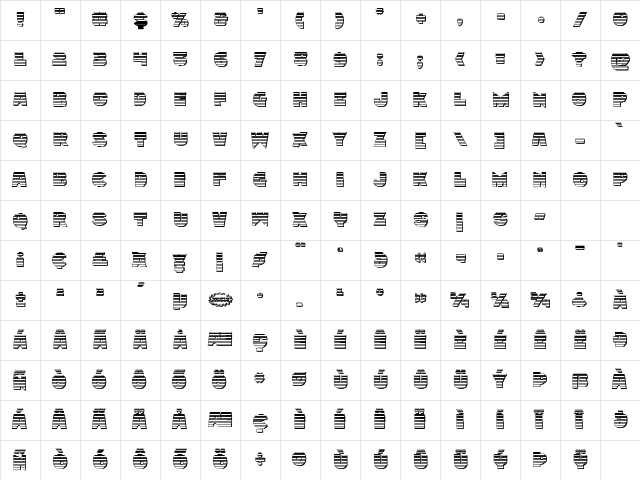
Complete Zounderkite Chrome Regular glyph index. Displaying only characters natively supported by Zounderkite Chrome Regular font.
Zounderkite Chrome is a composed and adaptable typeface that performs quietly and consistently across a wide range of design contexts.